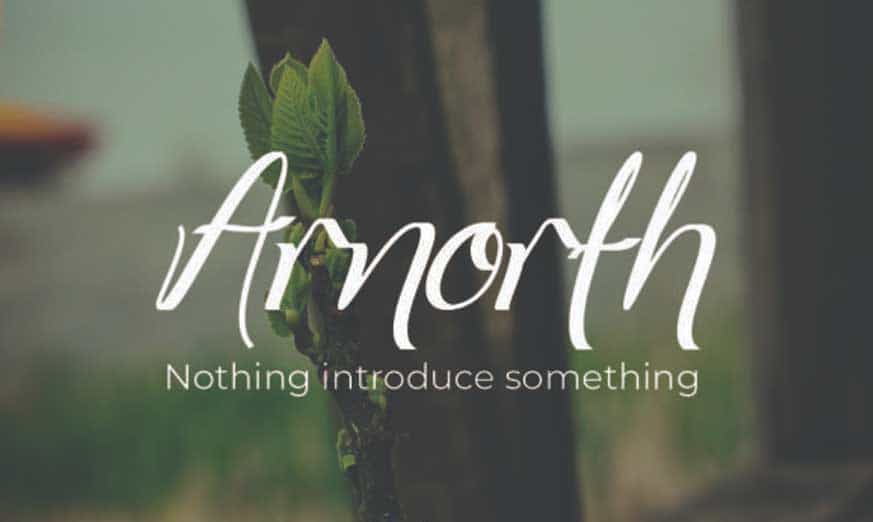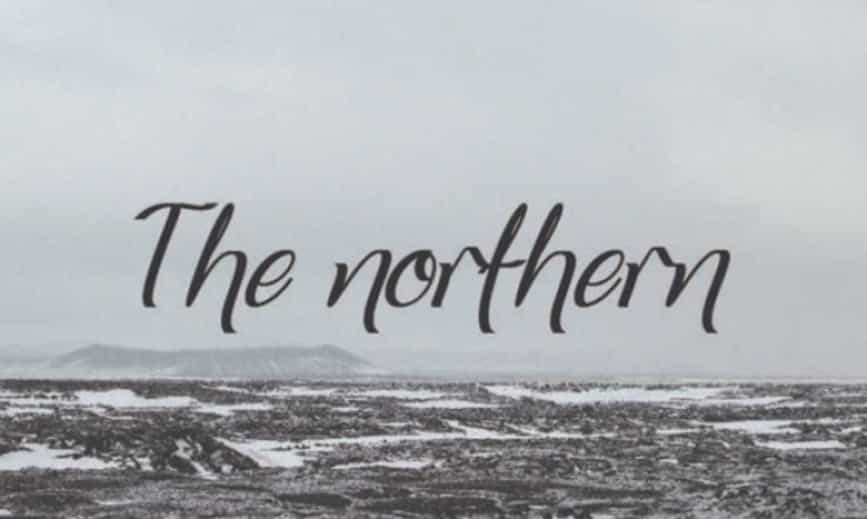
Discover Arnorhth Font, part of the Brush Display collection—a versatile and unique font perfect for adding a personal touch to your projects. Download it for free and enjoy crafting designs with style, from invitations to social media posts. This font is available exclusively for personal use, giving you the freedom to create without limits. Unlock your creativity with Arnorhth Font today!
Arnorhth is an outstanding, interesting display font. It will let any of your design projects pop into immediate focus!